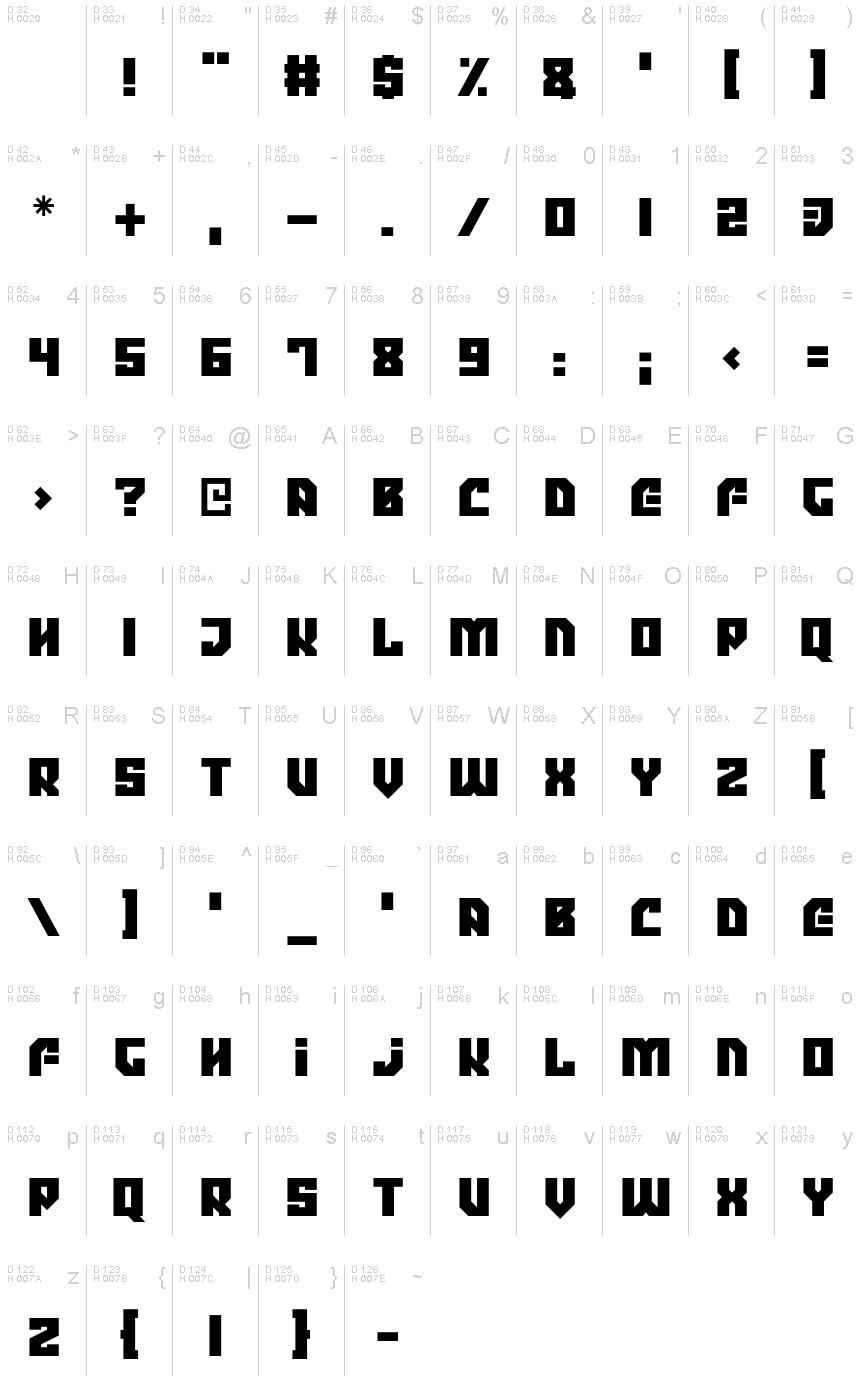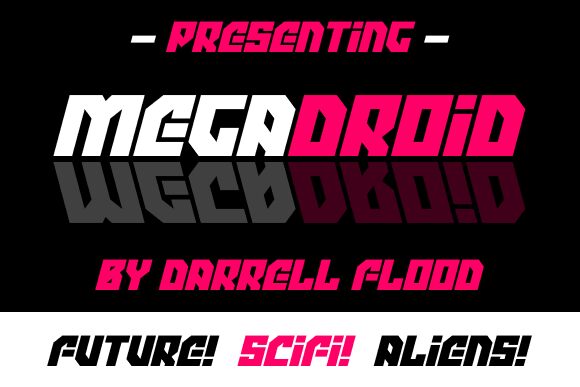
Megadroid
Megadroid is a bold, futuristic display font that commands attention. Crafted by Hawtpixel, this striking typeface exudes a sense of power and technological prowess. The letterforms are expansive and angular, with sharp edges that convey a distinct sense of modernity and innovation. The font's weighty presence lends an air of authority, making it well-suited for use in branding, packaging, and headlines where a strong, impactful visual statement is desired.
Megadroid's unique aesthetic would thrive in science fiction-inspired designs, digital applications, and contemporary visual identities. Its bold, attention-grabbing nature makes it a versatile choice for a wide range of media, from eye-catching posters to dynamic website headers. This font embodies a futuristic, technological spirit that is sure to captivate and engage audiences in the digital age.